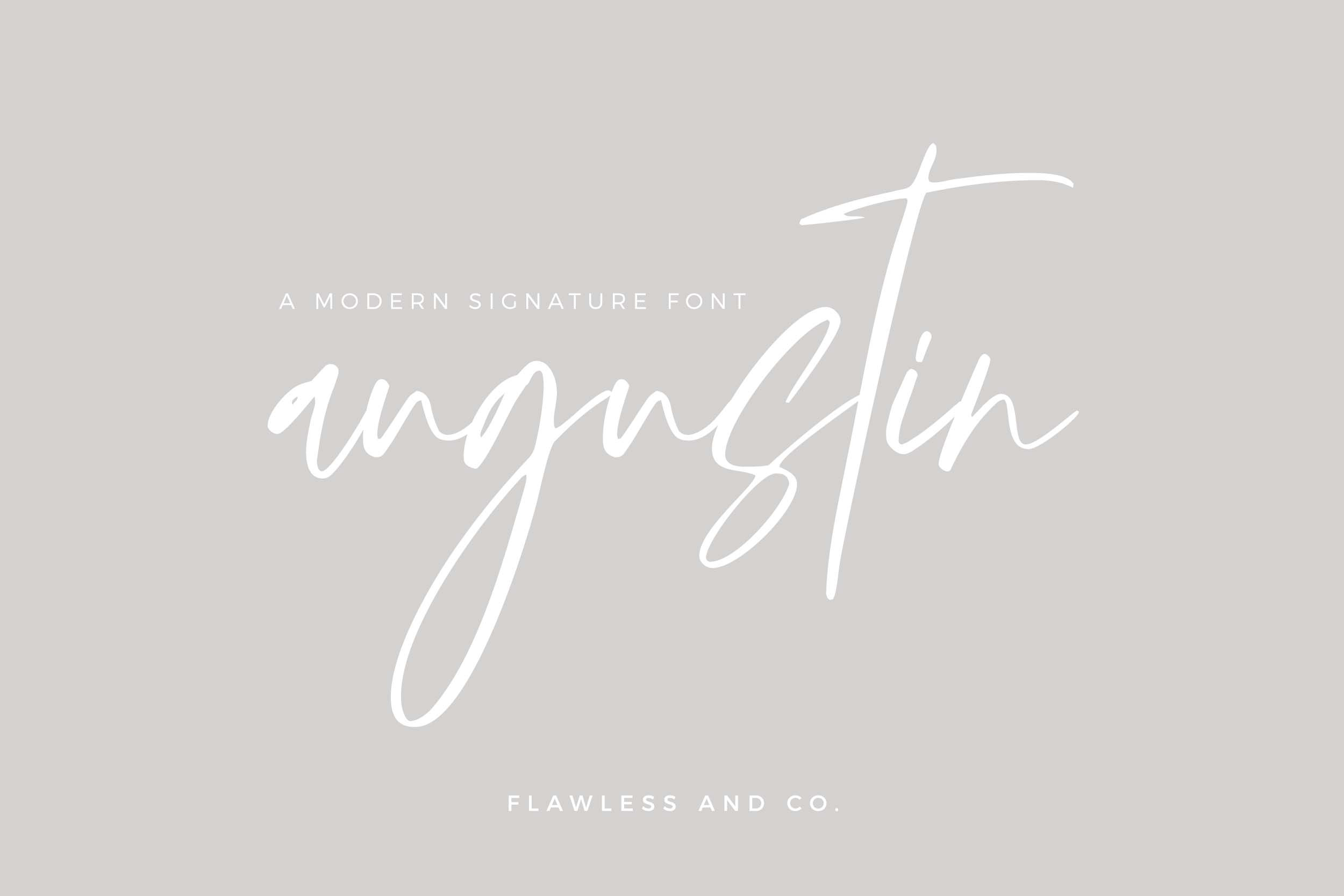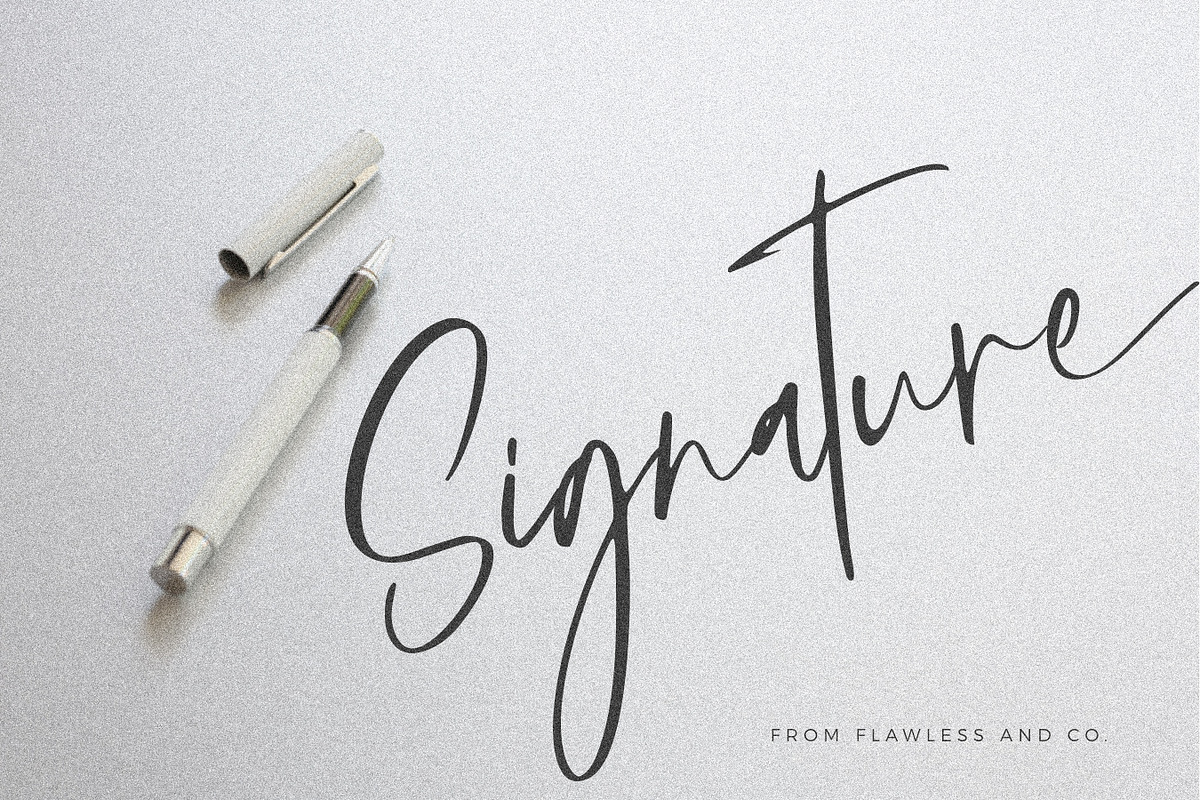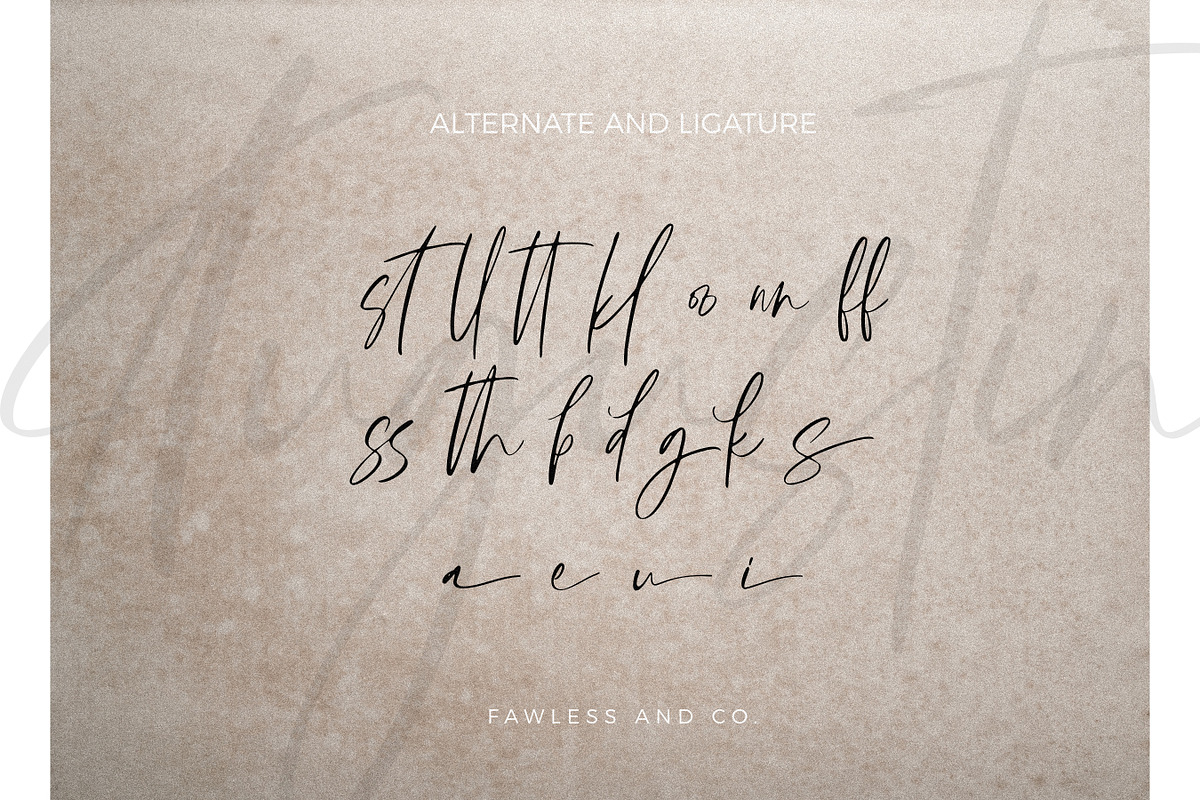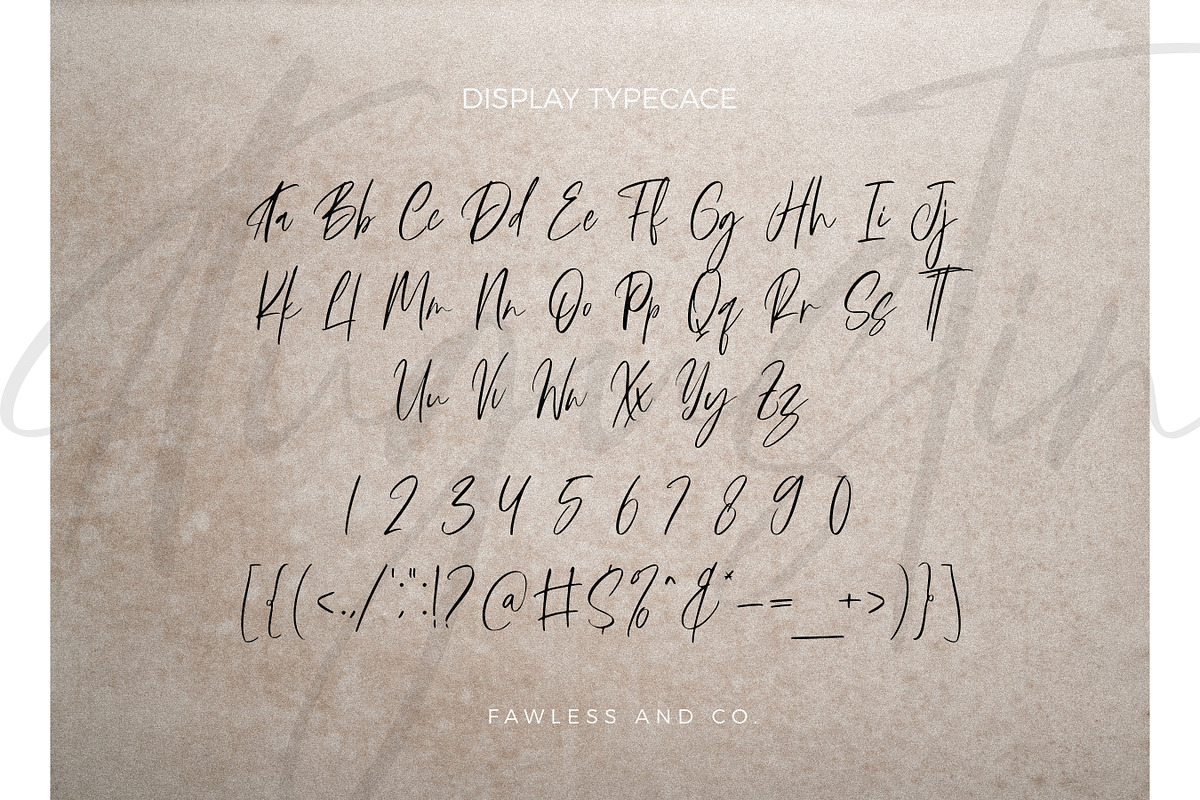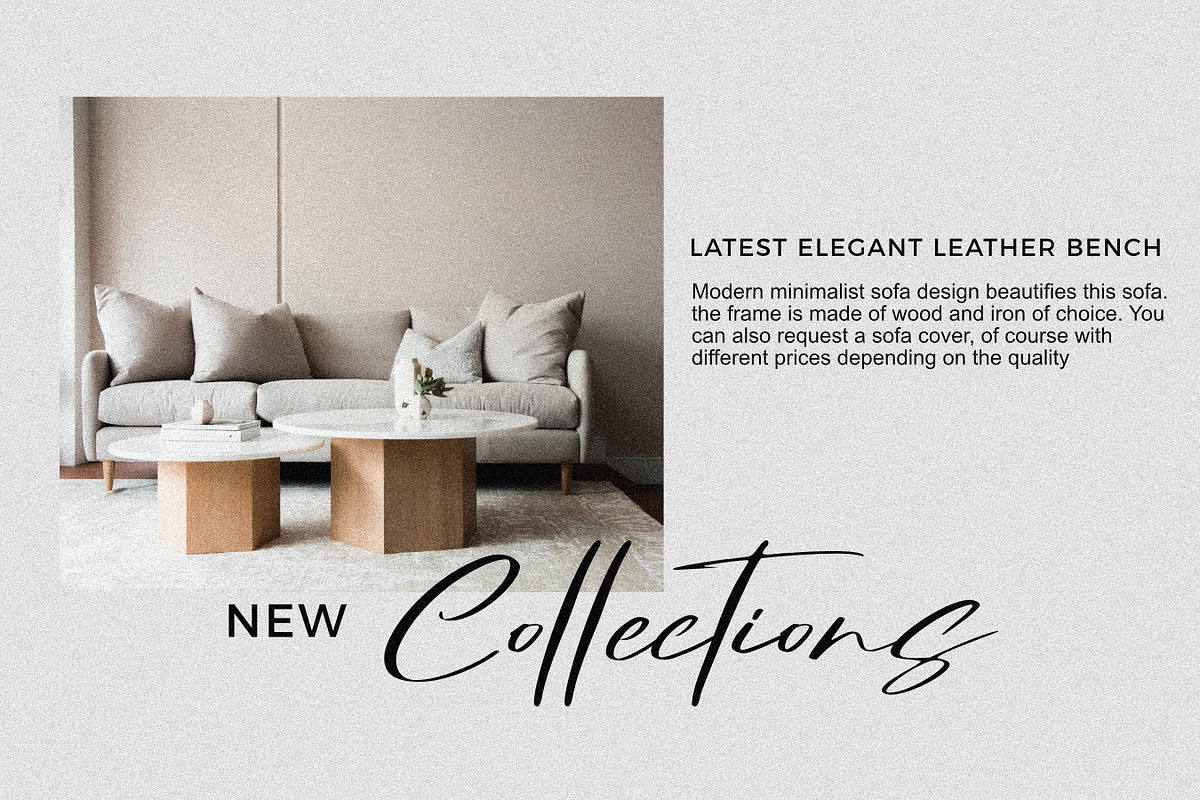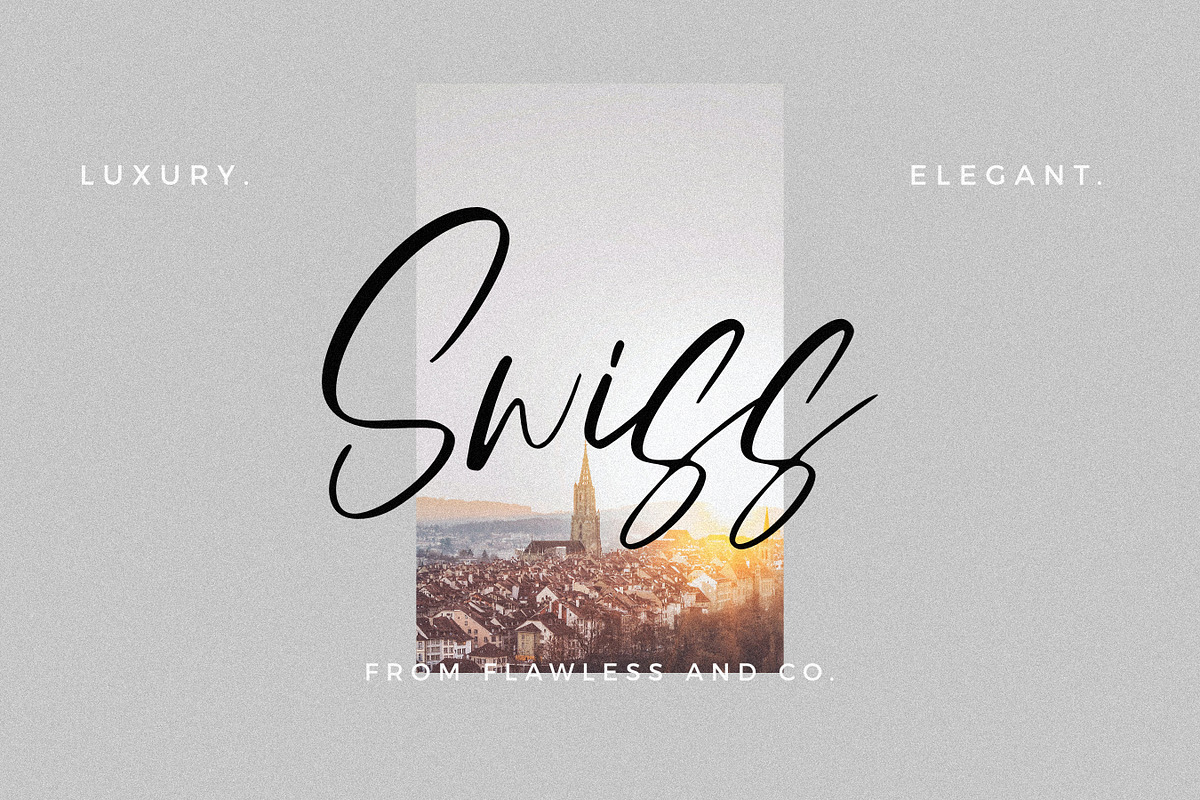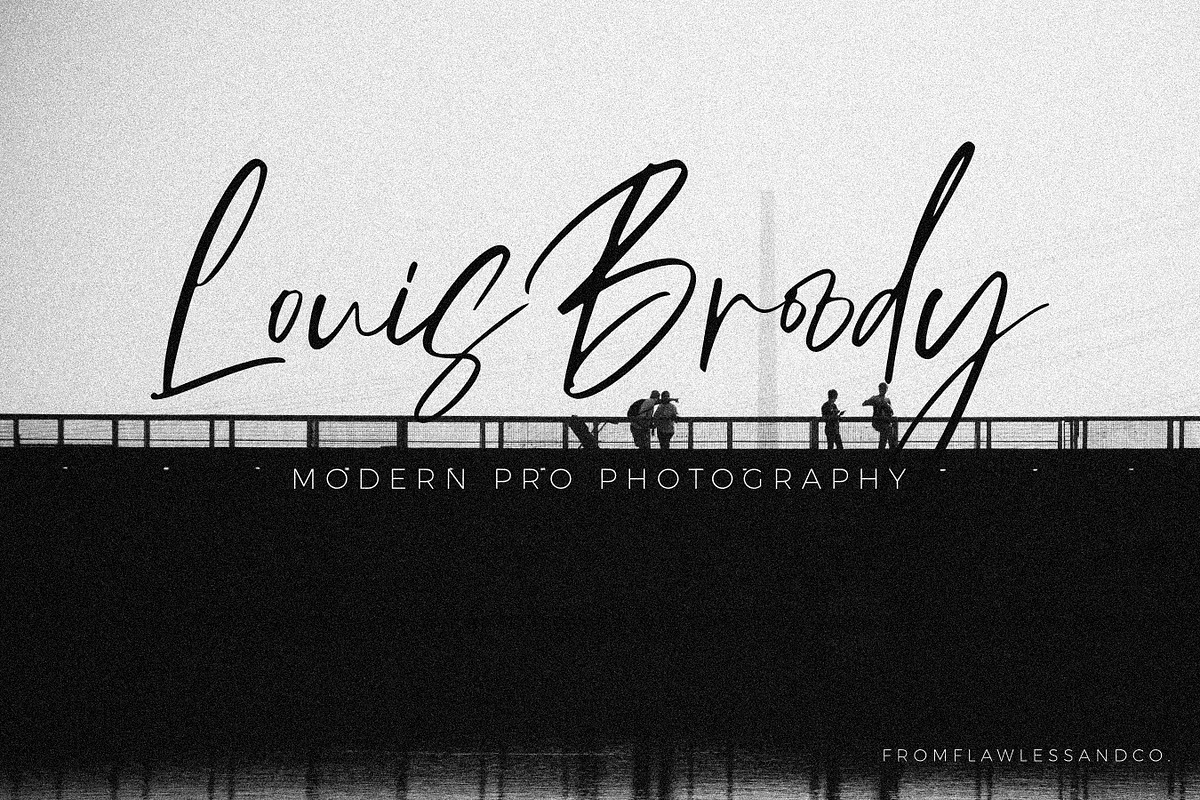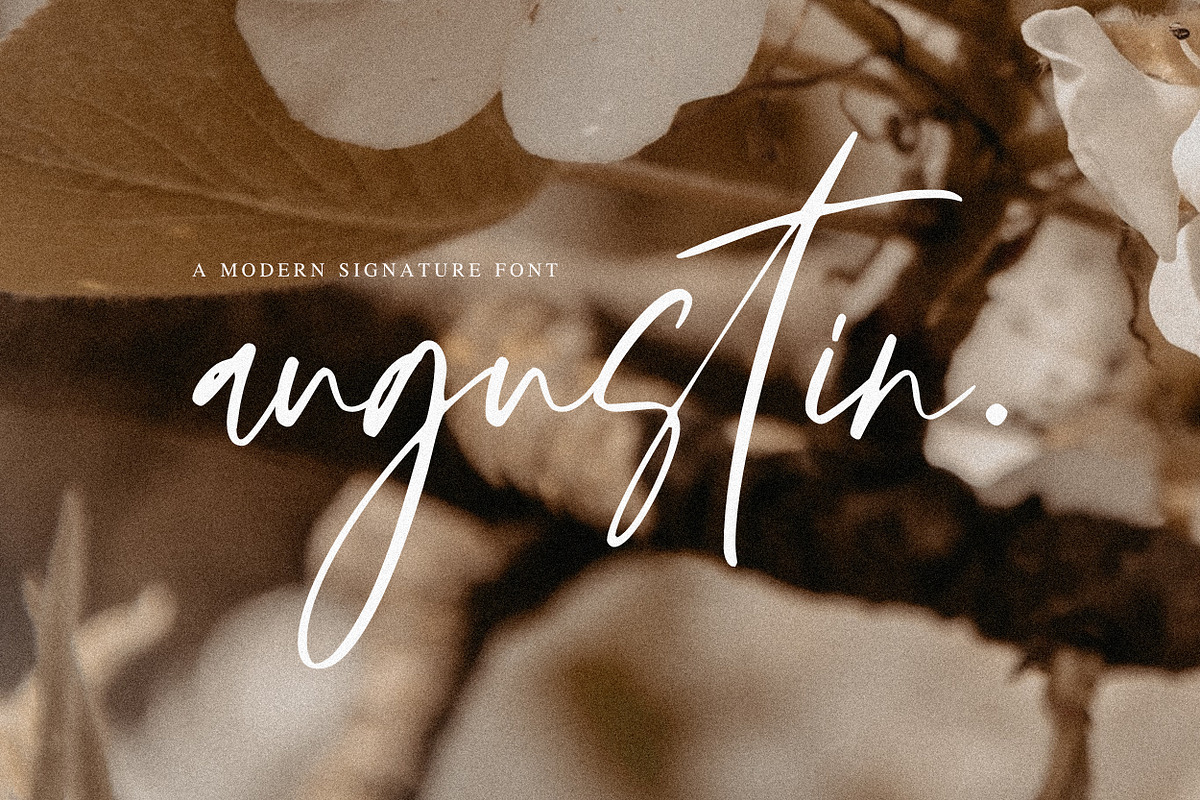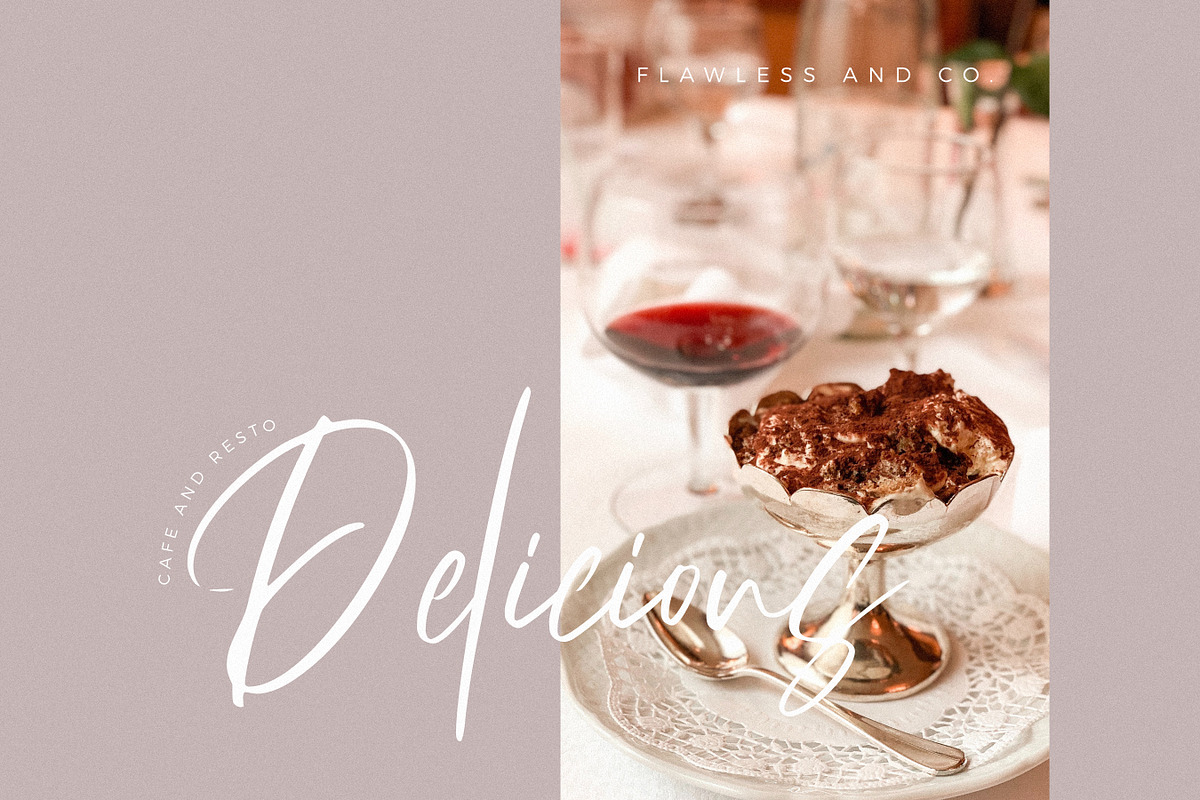
Augustin - Modern Signature Font
Augustin Font is a handcrafted script, this style gives a feel of Girly, modern, Suitable for any graphic designs such as branding materials, t-shirt, print, business cards, logo, poster, t-shirt, photography, quotes .etc
Multilingual Uppercase alphabet A-Z Lowercase alphabet a-z Alternate Character Numbers 0-9 Some punctuation